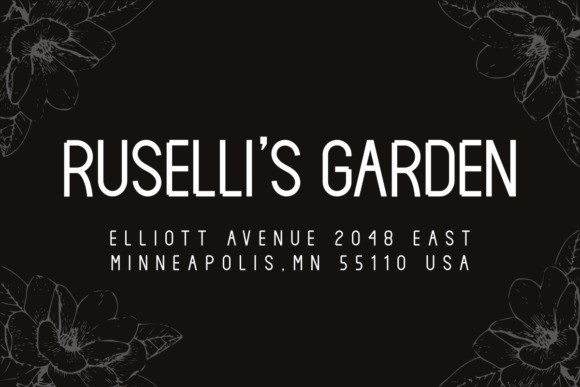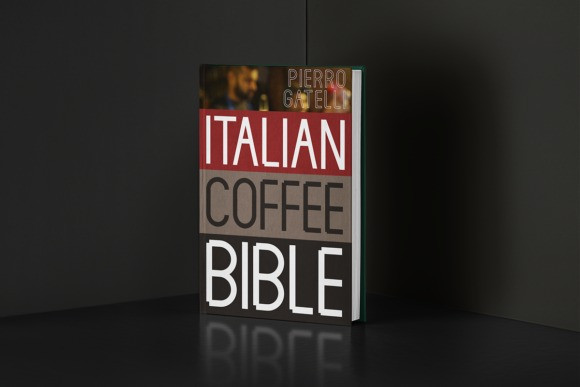
Zecko Sans Serif Font is a Minimal, Modern, Elegant sans serif font. With this font you can design your own logos, brands. Made from font designer named deedeetype. It’s a casual sans serif typeface. It’s perfect for a wide range of design projects to the highest level, be it branding, headings, wedding designs, invitations, signatures, logos, labels, and much more!